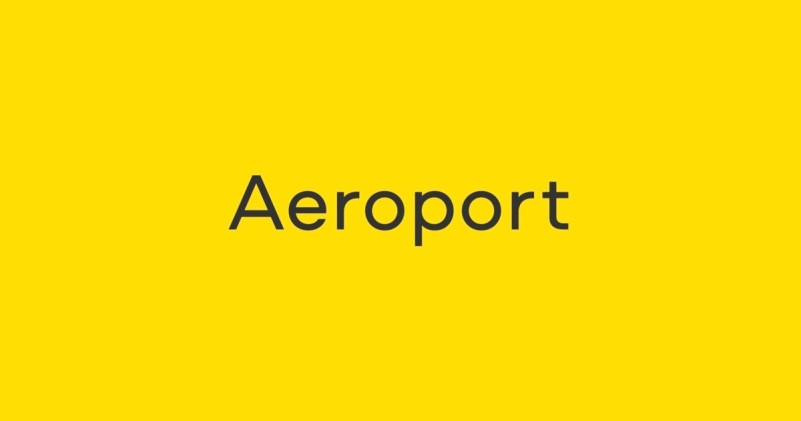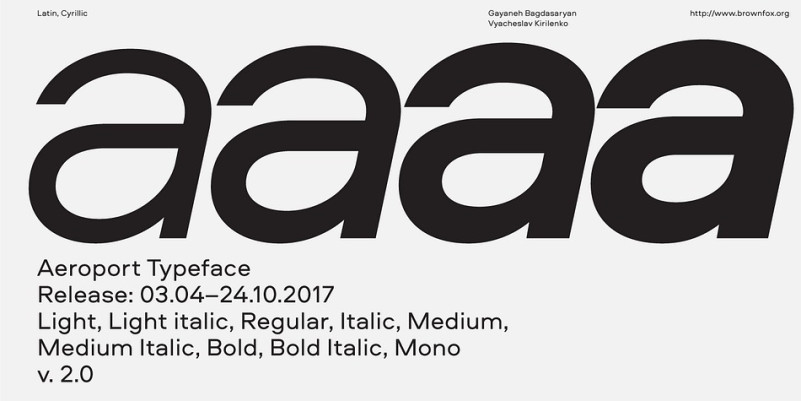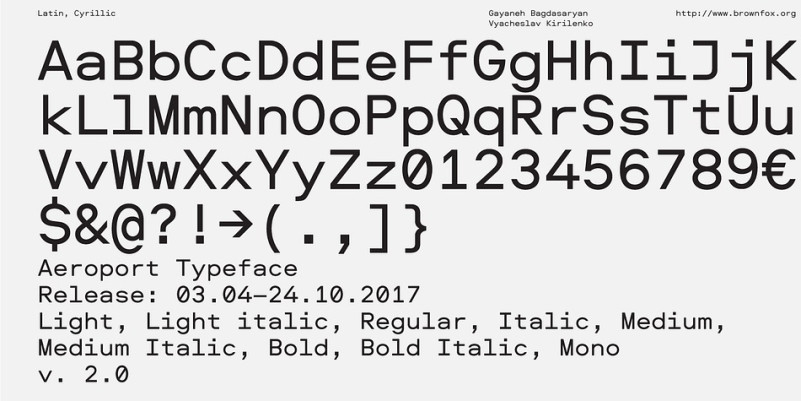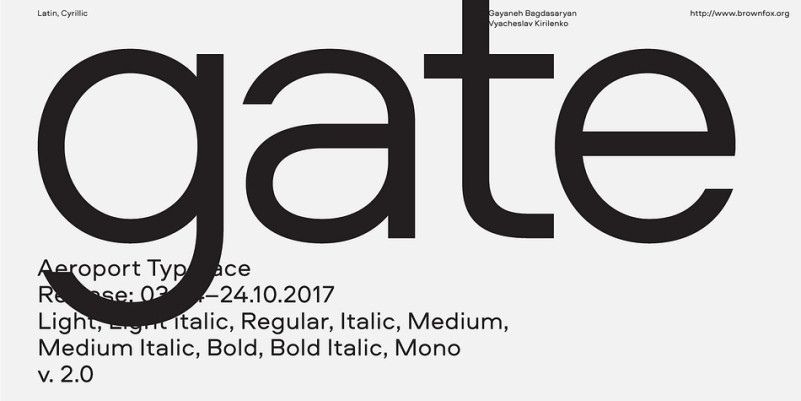
Aeroport Font Family
Aeroport Sans Serif Font is a humanist sans serif typeface in the spirit of both German geometric sans serifs and Swiss neogrotesques. Its deliberately wide proportions and relatively short capitals account for the excellent way the type carries the line. Its short ascenders and descenders allow for very tight leading.
When used in large point sizes, Aeroport reveals its industrial ancestry and its unconventional design: the somewhat unbalanced top of the lowercase a, the capital B that has deliberately not been compensated optically, the overly wide capital M. In smaller sizes the type creates a starkly different effect: its measured widths and low contrast make a text setting appear neutral and homogenous. This versatility is what makes Aeroport a multipurpose sans serif suitable for a wide variety of typographic applications.
The family includes four weights with their italics and a monospased style. Character set includes an alternate lowercase a, two sets of figures and currency symbols, uppercase punctuation, and a set of arrows. Includes Latin and Cyrillic sets supporting over forty languages.